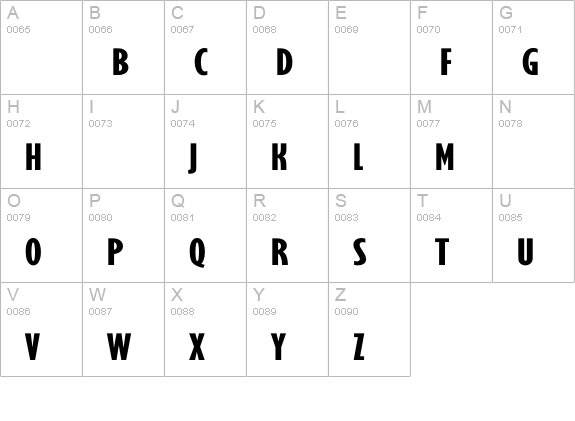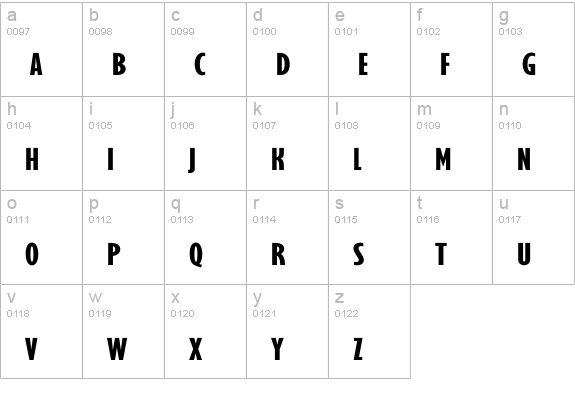
GilmoreSansExtBolExtCondTitl is a modern and bold extended condensed typeface that exudes sophistication and elegance. Its sleek lines and sharp edges make it perfect for headlines, titles, and branding projects that require a strong and impactful visual presence. The font features an extended character set, making it versatile for various design applications. What sets GilmoreSansExtBolExtCondTitl apart is that it is available for free download at FontsMarket.com. This means that designers and creatives have easy access to a premium-quality font without any cost, allowing them to elevate their projects without breaking the bank. With its clean and contemporary design, GilmoreSansExtBolExtCondTitl is a must-have addition to any designer's toolkit.